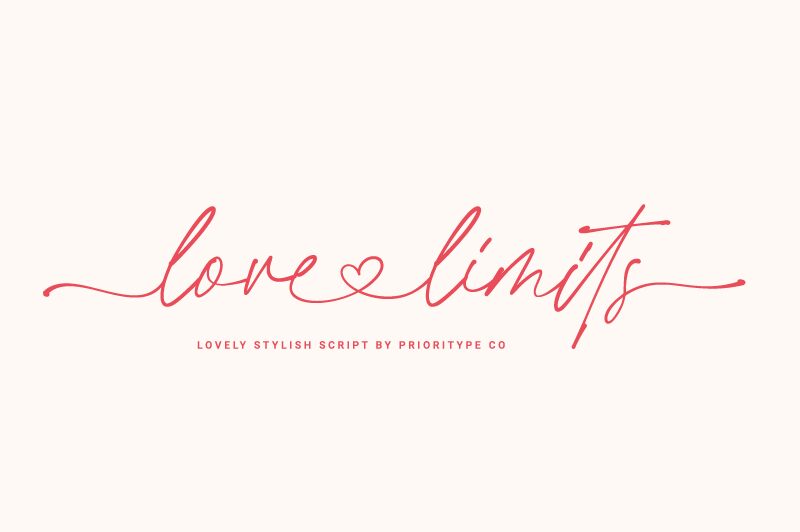
Love Limits font by Prioritype Co is a handwritten light font with a condensed width, casual elegance, and expressive flowing movement. Its unique letters can appear elegant and sweet in some situations, yet informal even with a contemporary feel in others.
Use it for logos, quotes posters, business cards, kids’ projects, covers and editorials among other things. Shirt designs can also benefit from this free versatile typeface as well as invitation cards whether they’re for birthdays or weddings. Take them further for product packaging or simply Instagram motivational posts with stylish overlays or strong captions that stand out.